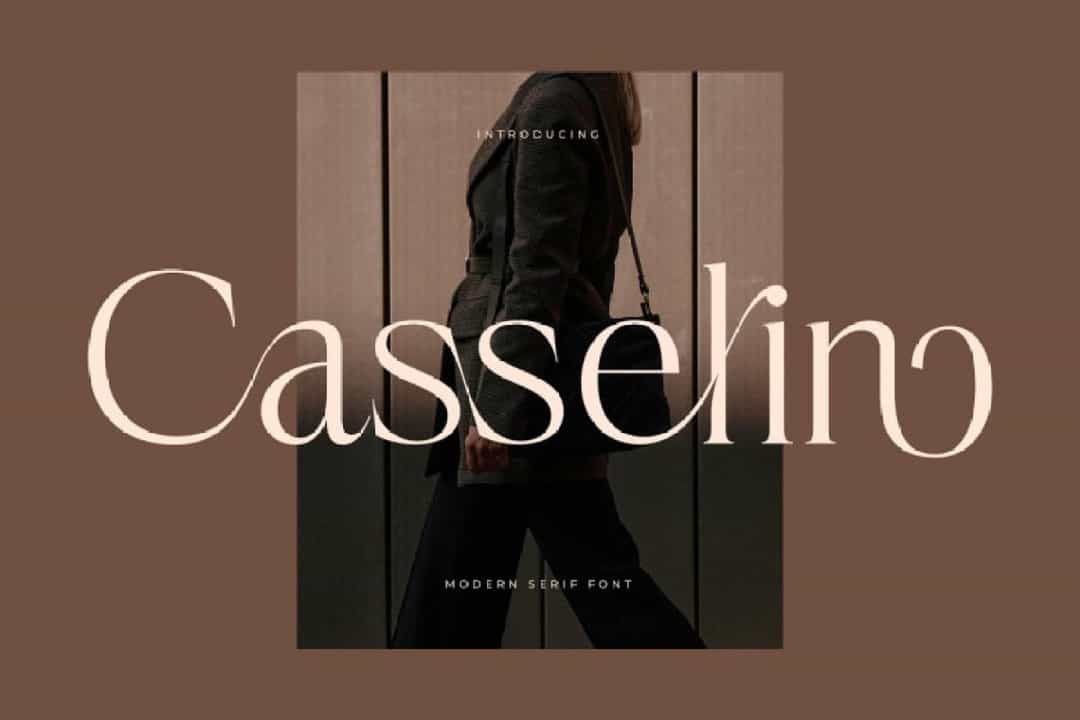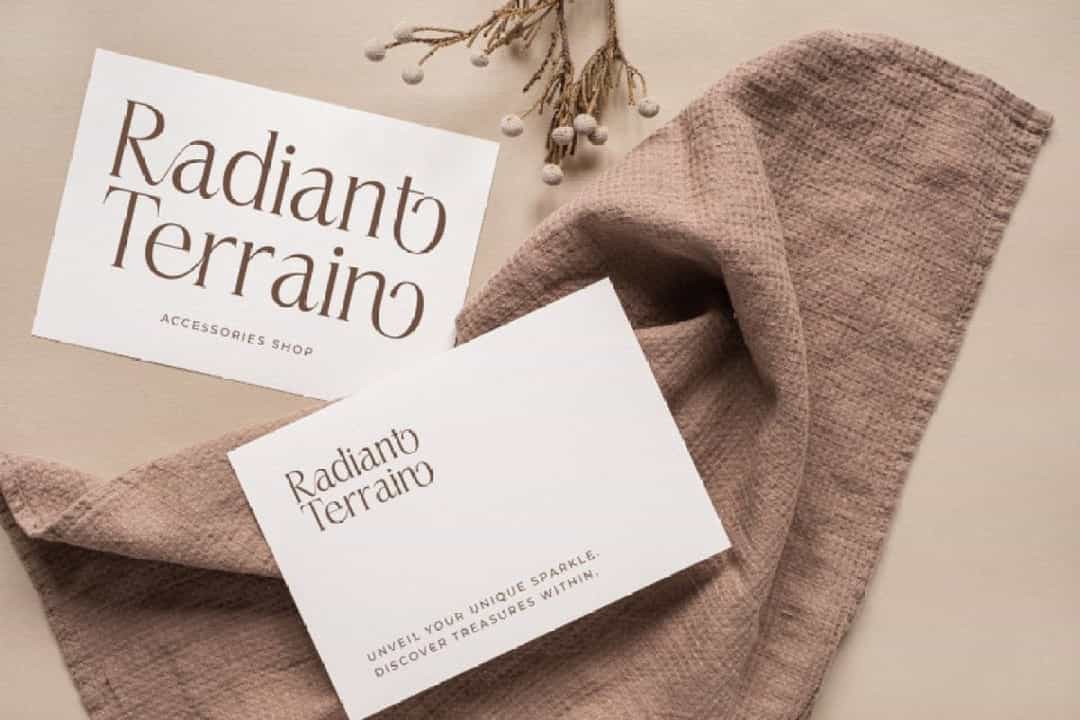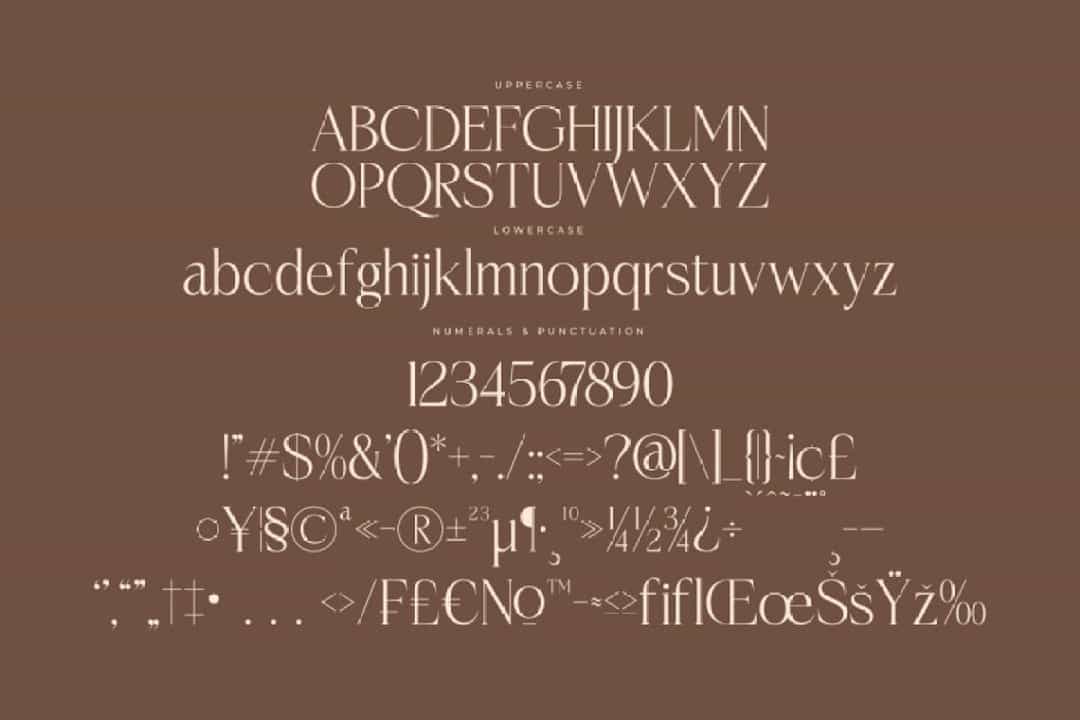
Casselin is an elegant and modern serif typeface, mixing modernity and sophistication. With its balanced proportions and clean lines, this typeface is well suited to editorial designs as well as logos. Casselin adds timeless appeal and professionalism to any project by offering timeless appeal and versatility.